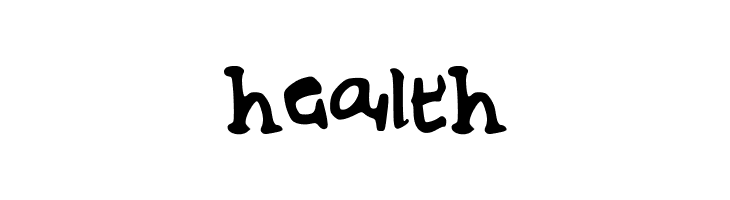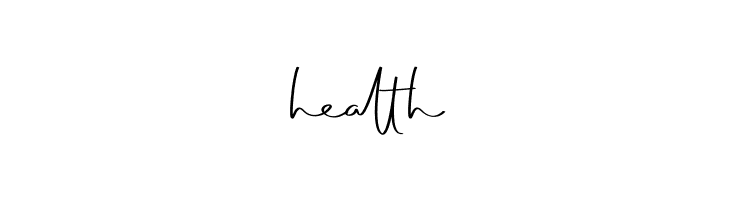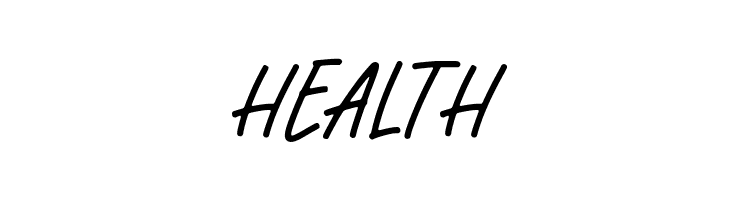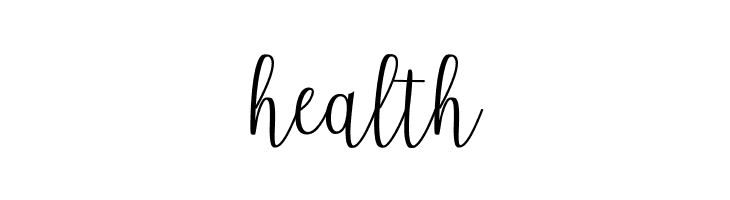
A delicate, handwritten script font with smooth, flowing lines.
A lively handwritten font with smooth, slanted strokes and a casual elegance.
An elegant, flowing script font with graceful loops and cursive style.
A playful, hand-drawn font with bold, rounded strokes and an artistic flair.
A bold, playful handwritten font with thick strokes and rounded edges.
A playful, bold font with rounded edges and a whimsical style.
A playful, whimsical font with tall, narrow characters and charming details.
An elegant, flowing script font with interconnected letterforms and artistic curves.